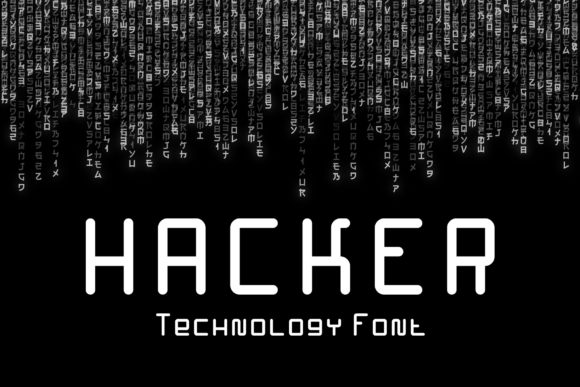
In the realm of typography, where letters dance and words take flight, Hacker Font emerges as a digital masterpiece, a display font that captivates the eyes and ignites the imagination. Inspired by the dawn of the computer age in the 1980s, Hacker Font embodies the spirit of innovation and the boundless possibilities of the digital world.
With its rounded contours and distinctive boldness, Hacker Font exudes an inviting charm that draws you in, while its inherent strength commands attention. It's a font that speaks to the modern age, a testament to the power of technology and the interconnectedness of our digital lives.
Step into the world of Hacker Font and discover a universe of creative possibilities. Whether you're crafting captivating headlines, designing eye-catching logos, or creating immersive digital experiences, Hacker Font is your trusted companion, guiding you through the labyrinth of digital expression.
Harness the versatility of Hacker Font and unlock your creative potential. Its boundless adaptability makes it the perfect choice for a myriad of applications, from websites and social media graphics to presentations and marketing materials. Let Hacker Font amplify your message and leave a lasting impression on your audience.
Embrace the legacy of Hacker Font, a font family steeped in history and innovation. Created by the renowned HipFonts, Hacker Font carries the torch of typographic excellence, pushing the boundaries of digital design. Join the ranks of satisfied users who have discovered the transformative power of Hacker Font.